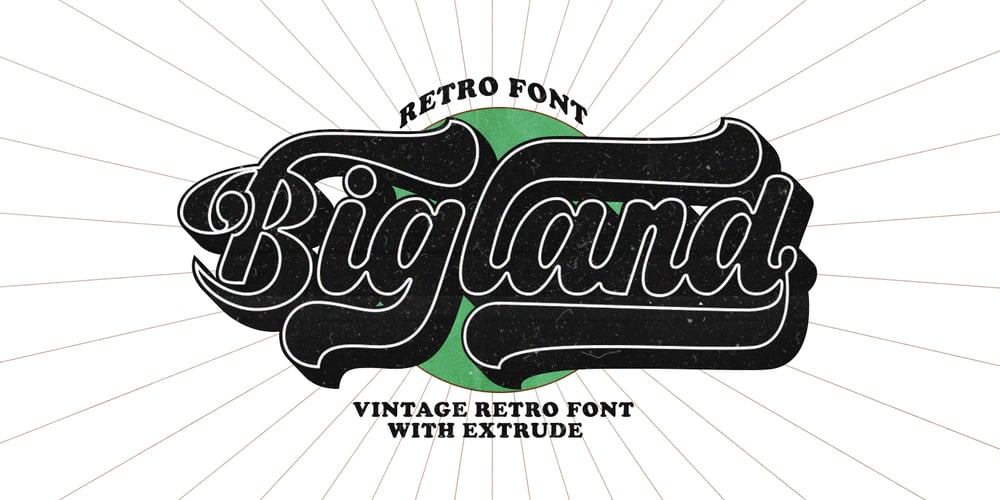
Bigland Retro
Bigland Retro font
Bigland Retro Font Family was designed by Rizki Andika and published by Letterfreshstudio. Bigland Retro contains 2 styles and family package options. Vintage Retro – Bigland is an urban retro font with the style like a logotype lettering.was created to help you designing logotype or lettering style for your Brand or your clients.it has an extensive lingual support, covering European and Asian Latin scripts.The font contains all characters you’ll ever need, including all punctuation and numbers.Multilingual SupportAlternates,Regular/Extrude/Thankyou